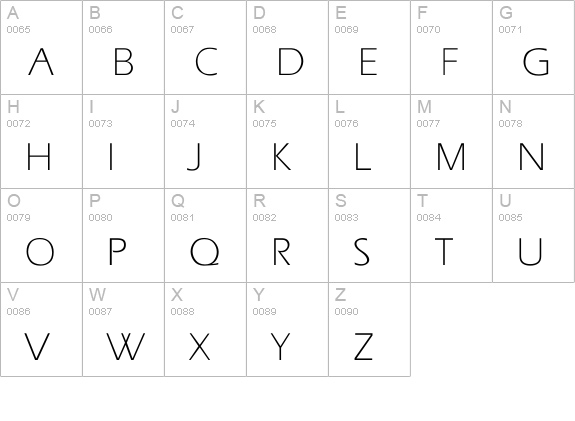
Sire_Light-Normal is the standard, neutral variant in the Sire_Light typeface family \xE2\x80\x94 well suited to general body text, paragraphs, and standard typographic work.
The Sire_Light-Normal font is a beautiful and elegant typeface that exudes sophistication and grace. Its slender and delicate letterforms make it perfect for a variety of design projects, from branding and logos to invitations and headlines. This font features a clean and modern look, with just the right amount of character to add interest to any composition. What's even better is that the Sire_Light-Normal font is completely free! Yes, you read that right – this amazing font is freely available to download at FontsMarket.com. This means that you can enhance your designs with this stunning typeface without having to spend a dime. Whether you're a professional designer or a hobbyist, this font is a must-have in your collection. With its versatile nature, the Sire_Light-Normal font can be used in a wide range of design projects. Its legibility and clarity make it perfect for body text, while its elegant and stylish appearance makes it a great choice for headlines and titles. No matter how you choose to use it, this font is sure to make your designs stand out from the crowd. So why wait? Download the Sire_Light-Normal font today and explore the endless possibilities it offers. Let your creativity flow and create stunning designs that leave a lasting impression. Remember, this font is free, so don't miss out on this incredible opportunity to elevate your design game. Head over to FontsMarket.com and get your hands on the Sire_Light-Normal font now!